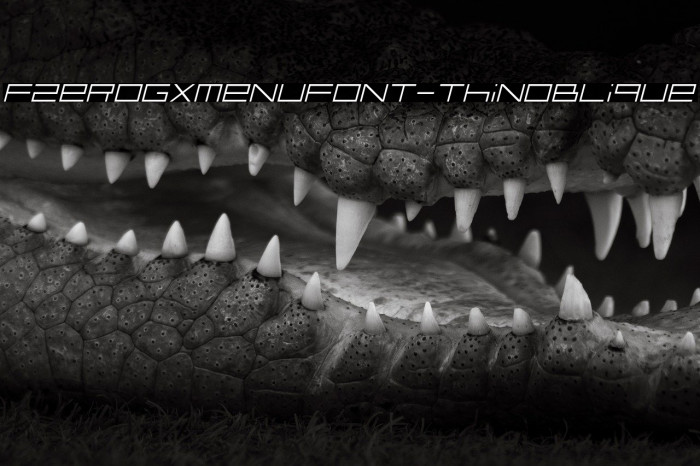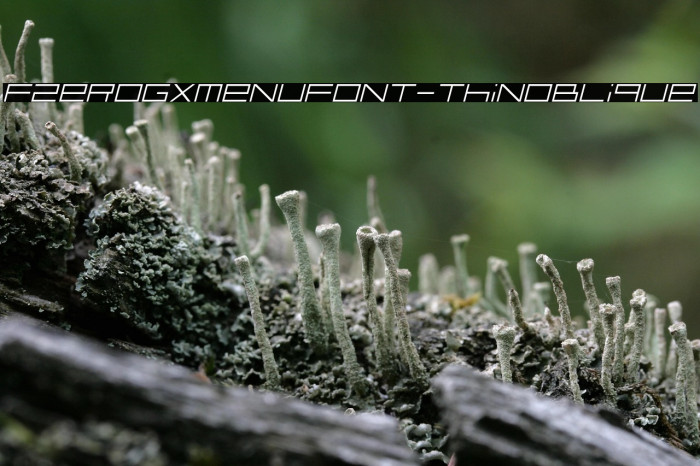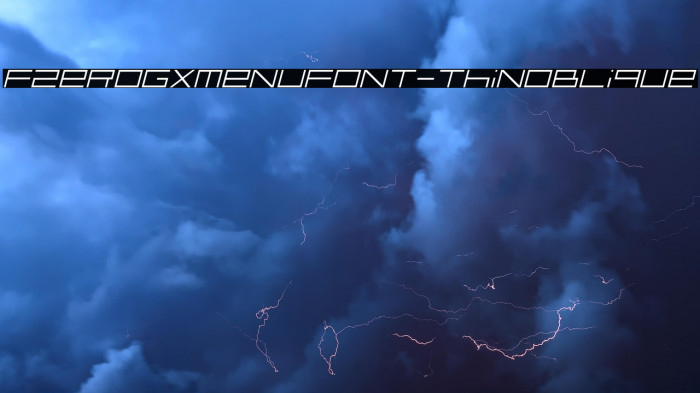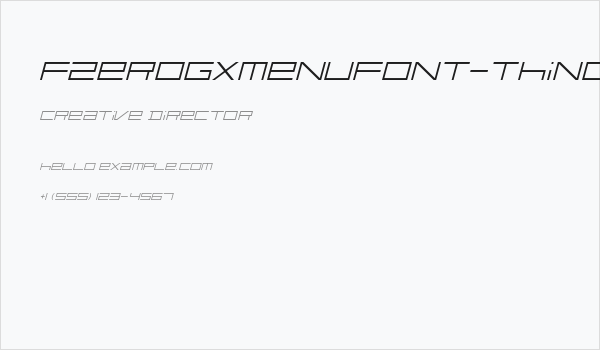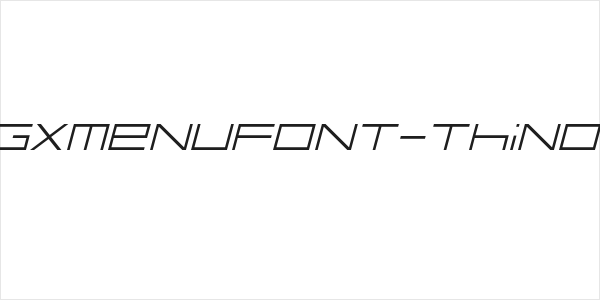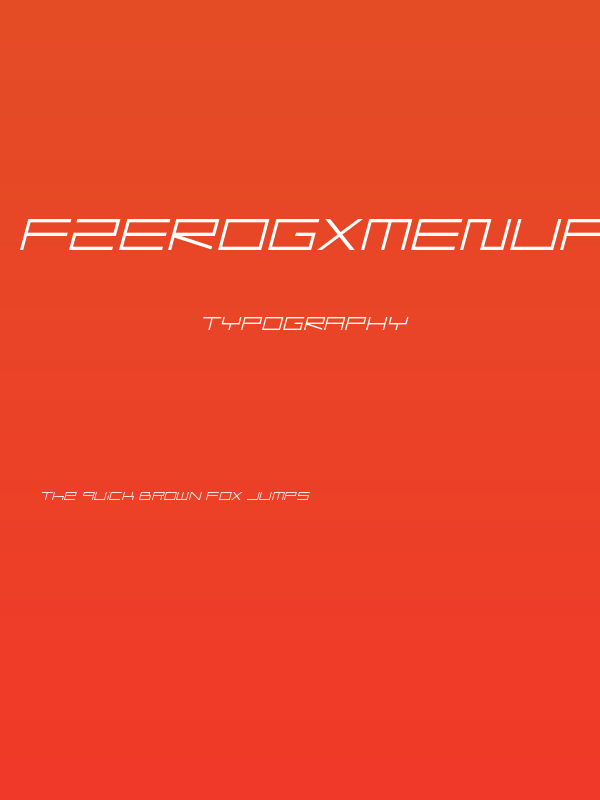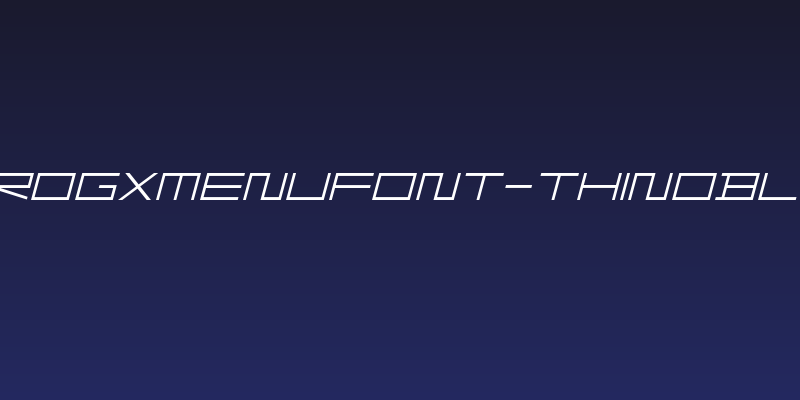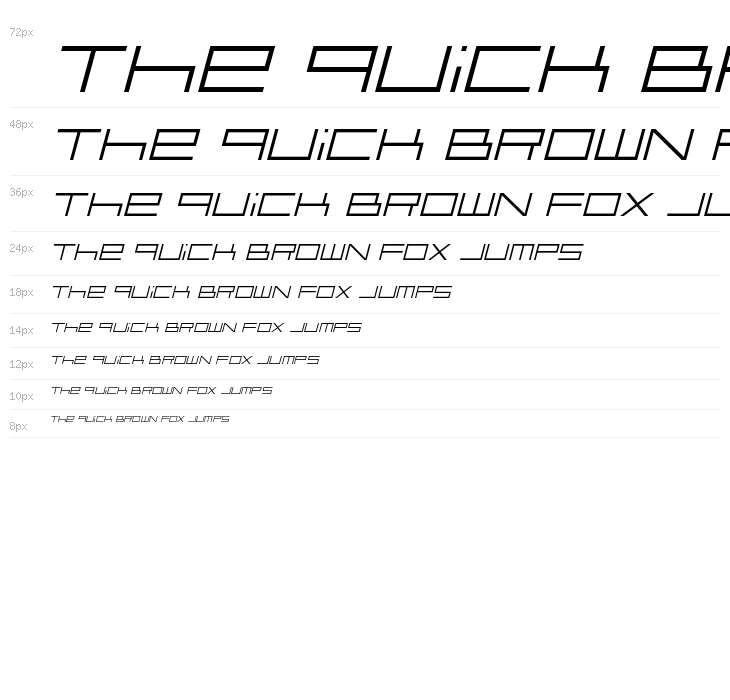
FZeroGXMenuFont-ThinOblique Font
FZeroGXMenuFont-ThinOblique Description
This font exhibits a sleek, futuristic design with an oblique orientation, giving it a dynamic and forward-moving appearance. The characters are thin and elongated, with sharp angles and clean lines that convey a sense of speed and modernity. The uppercase and lowercase letters maintain a consistent style, with a geometric structure that enhances readability while maintaining a unique aesthetic. The numerals and special characters follow the same design principles, ensuring uniformity across all glyphs. This font's minimalistic yet distinctive style makes it suitable for projects that require a modern and tech-savvy look.
| Use Case | Headlines, Logos, Digital interfaces |
| Proposed Projects | Ideal for video game interfaces, tech branding, futuristic posters, and digital media. |